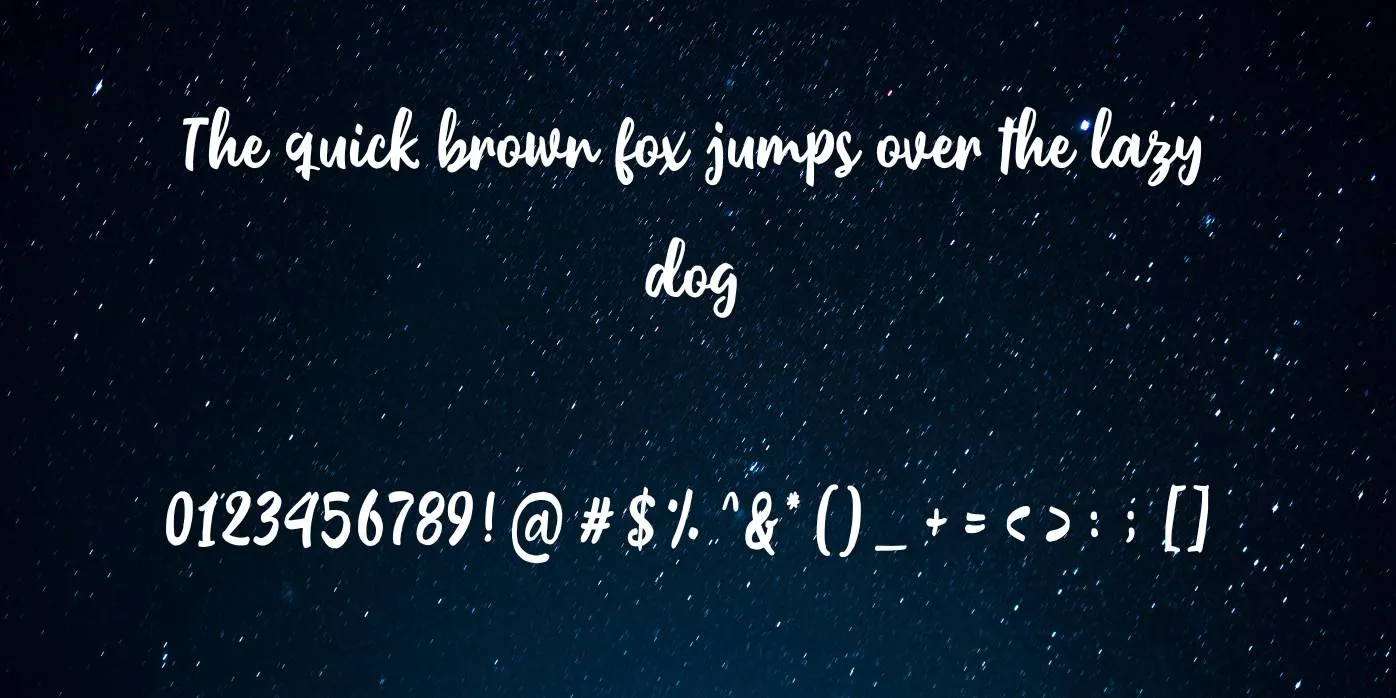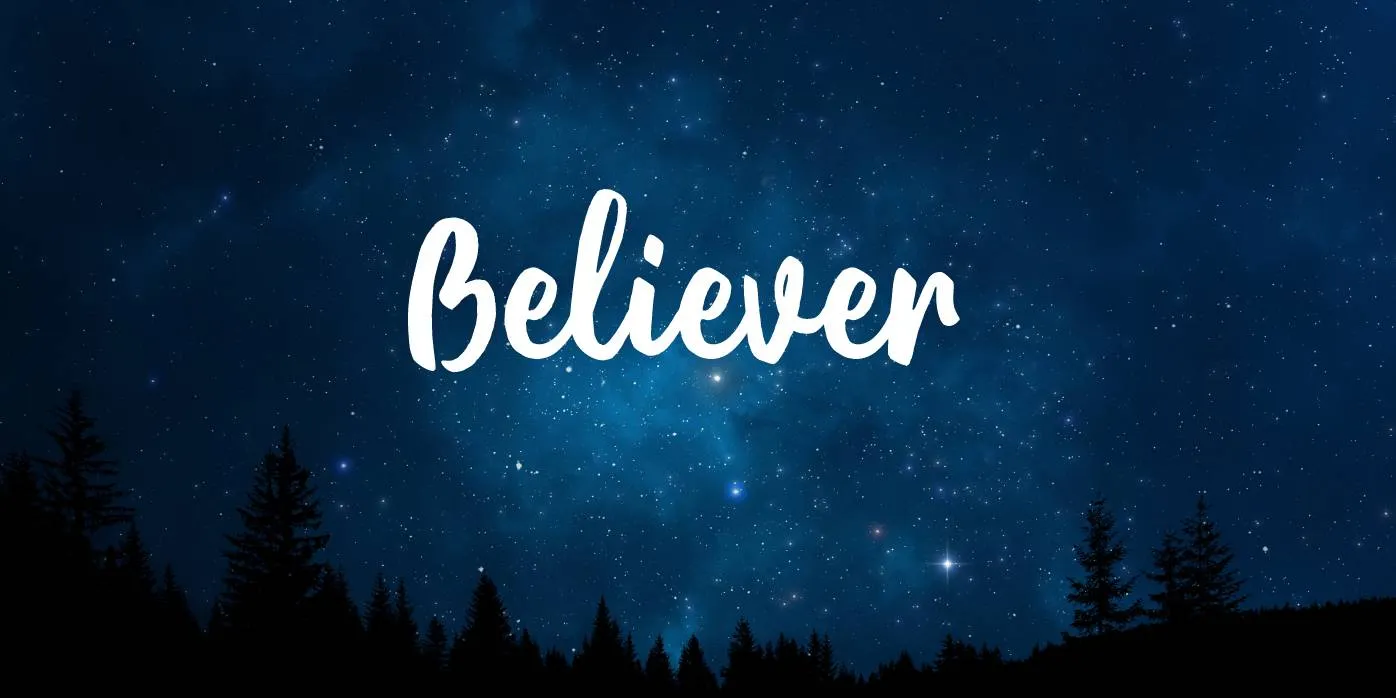
Believer Font
Let’s talk about a very interesting handwritten typeface Believer Font. Jroh Creative designs this beautiful font. It can be used to design many projects because of its classy and beautiful look. It contains 264 characters, 364 glyphs, and 1000 units per Em.
You can also use it for pairing with other fonts like the royal signature font to give a more beautiful and attractive look to your projects. The weight and the width of the font are medium (normal). The pattern style followed by this font is Italic. Once you use this typeface you want to use it again and again in your projects.
Usage You can use this font in many classy projects It has different elements like you can find characters, capital letters, small letters, punctuation, and special characters. It can be used to design wedding cards, greeting cards, and other invitation cards as well. You can use this font for decorations-themed parties and home decorations. This font is a good choice for both print and digital media.
For printing banners, posters, flyers, and brochures you can also use this font. It is good for making Logos and Titles for different brands. You can use it for making book covers and fashion magazine covers also. To make new or edit designs in graphic applications like Adobe Photoshop, CSS, and Canva you can use this font as well.
Who is the designer of Believer Font? This stunning font is designed by Jroh Creative. It is a very beautiful handwritten font and you can use it for making so many attractive projects. Can I use Believer Font for making Logos?